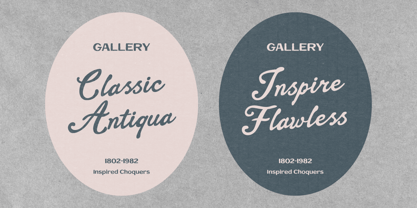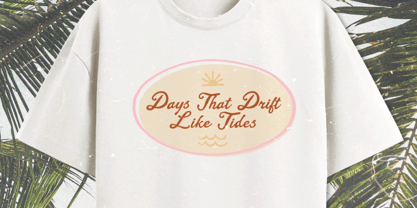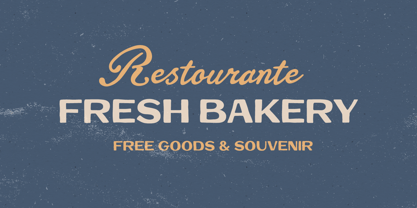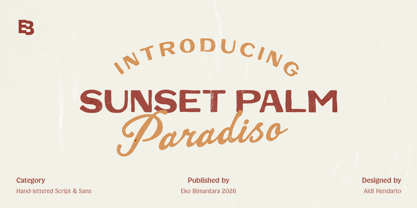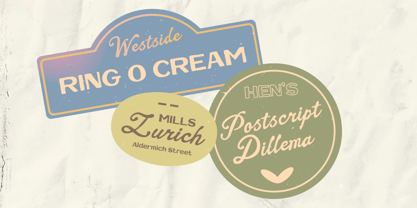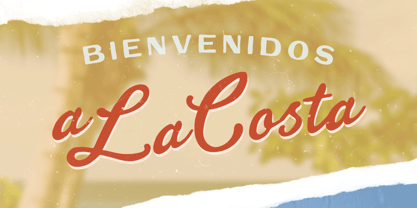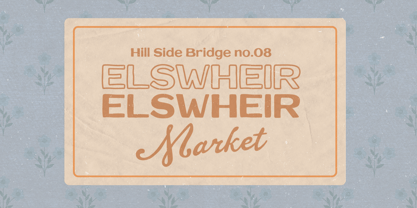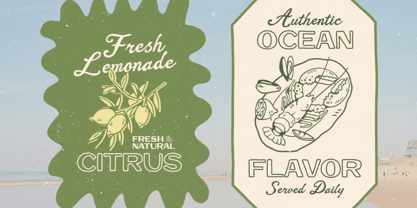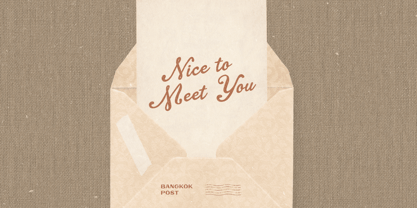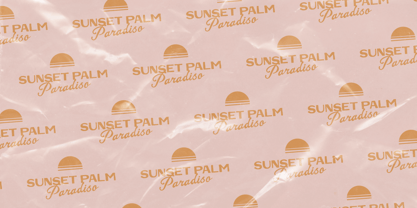
Sunset Palm
Sunset Palm is a warm and character-rich typeface pairing inspired by vintage beach signage and mid-century tropical aesthetics. Blending a bold, rounded sans serif with a flowing retro script, this duo captures the relaxed elegance of sunset moments by the coast. Designed to evoke nostalgia, calm, and sunny optimism, Sunset Palm is perfect for branding, hotel and resort identities, packaging, posters, and lifestyle designs that seek a timeless yet friendly feel. Its balanced contrast makes it versatile and expressive, bringing a sense of laid-back sophistication and sun-kissed charm to every composition.
Eko Bimantara is a type designer from Indonesia. Always has an intention to creating fonts that not only look great but also perform across a wide range of mediums and also across wide range of theme. The goal is to give designers the tools to make their projects that speaks a lot with various expression. Eko Bimantara’s fonts are featured in everything from corporate identities to street art posters, and have numerous ideas and concept ready to expand for fresh fonts for years further.